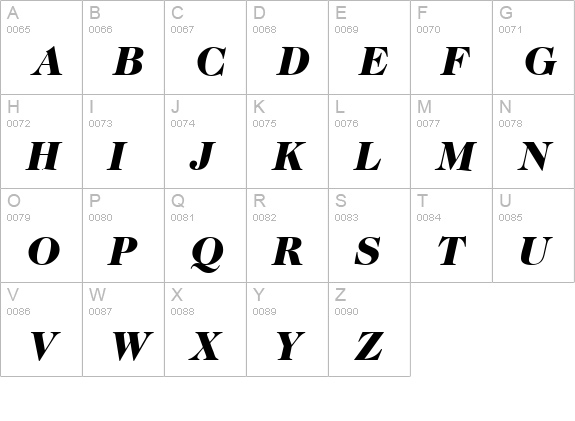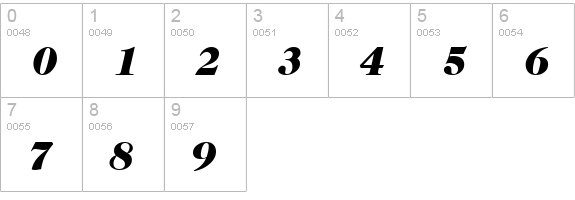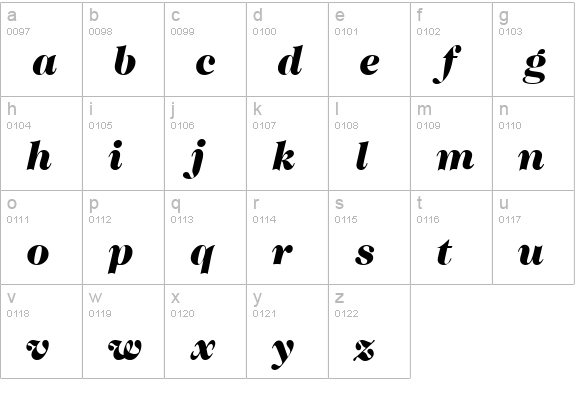
Caslon335Black-RegularItalic Font Details
Caslon335Black-RegularItalic is a stylish and elegant font that exudes sophistication and charm. Its italicized design adds a touch of flair, making it perfect for adding a touch of class to any project. The bold strokes and graceful curves of this font make it ideal for headlines, titles, and other prominent text elements. What sets Caslon335Black-RegularItalic apart is not just its beauty, but also its accessibility. This font is available for free download at FontsMarket.com, allowing you to enhance your designs without breaking the bank. Whether you're working on a professional project or a personal creative endeavor, Caslon335Black-RegularItalic is a versatile font that will elevate your work to new heights.